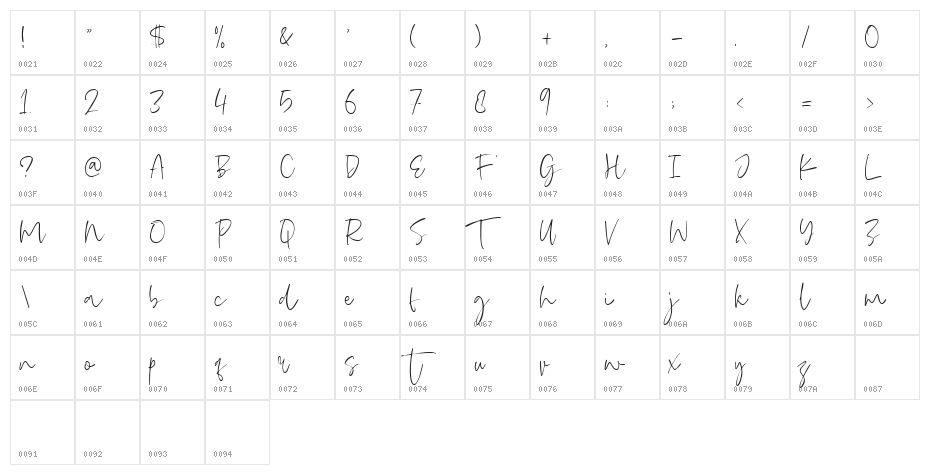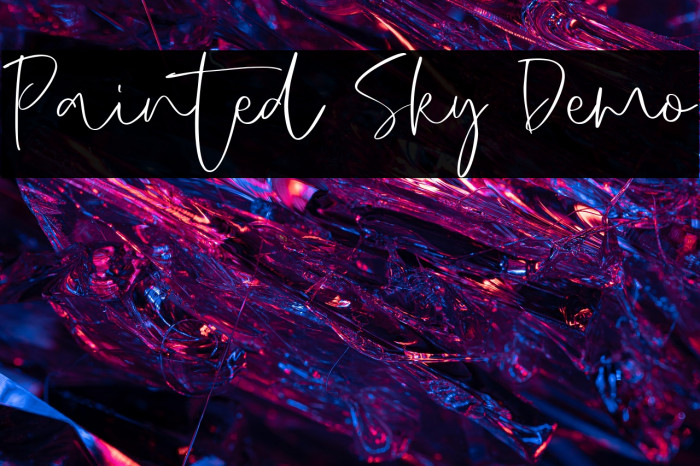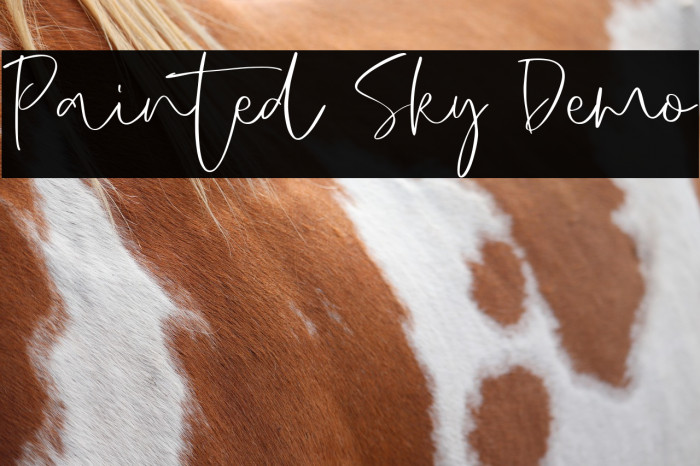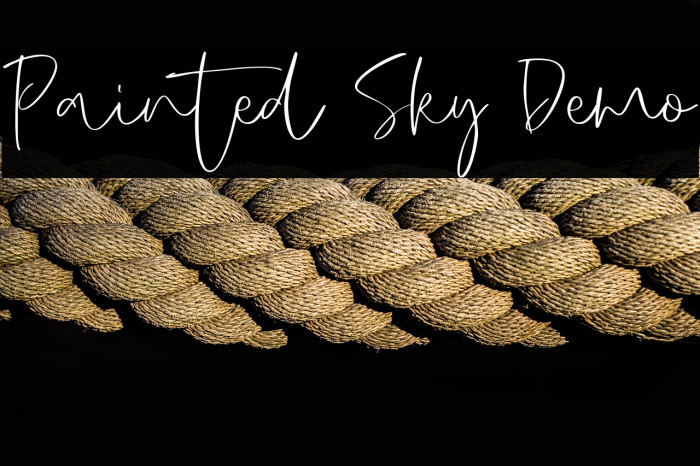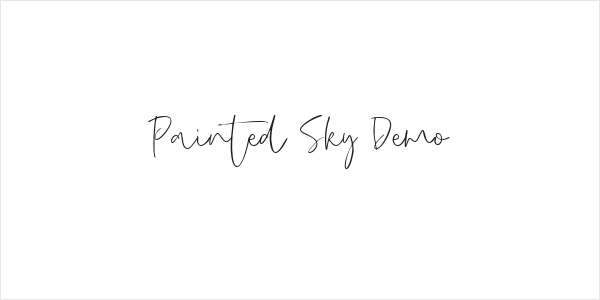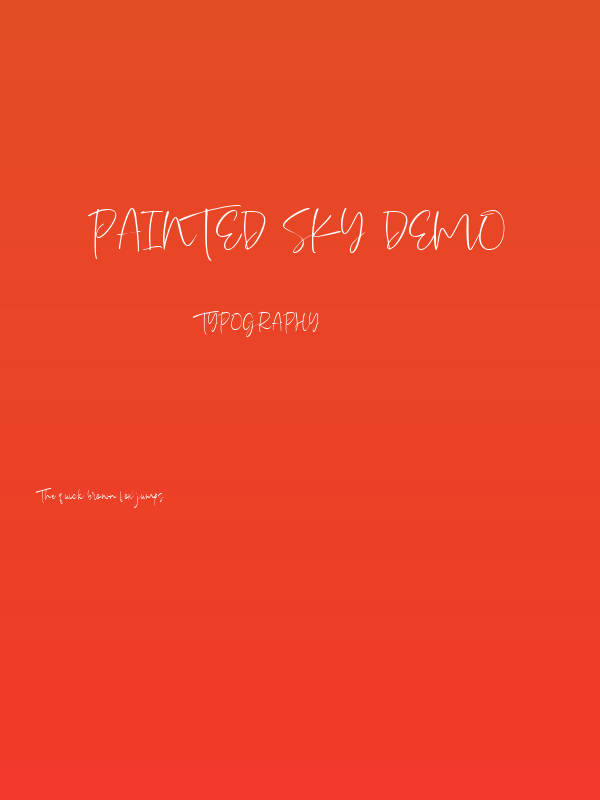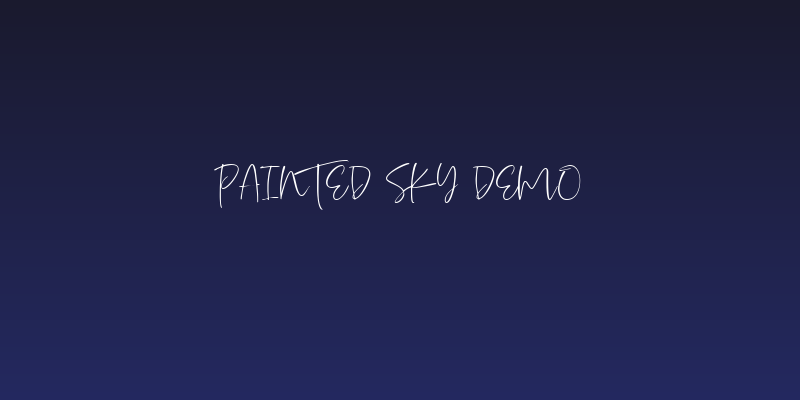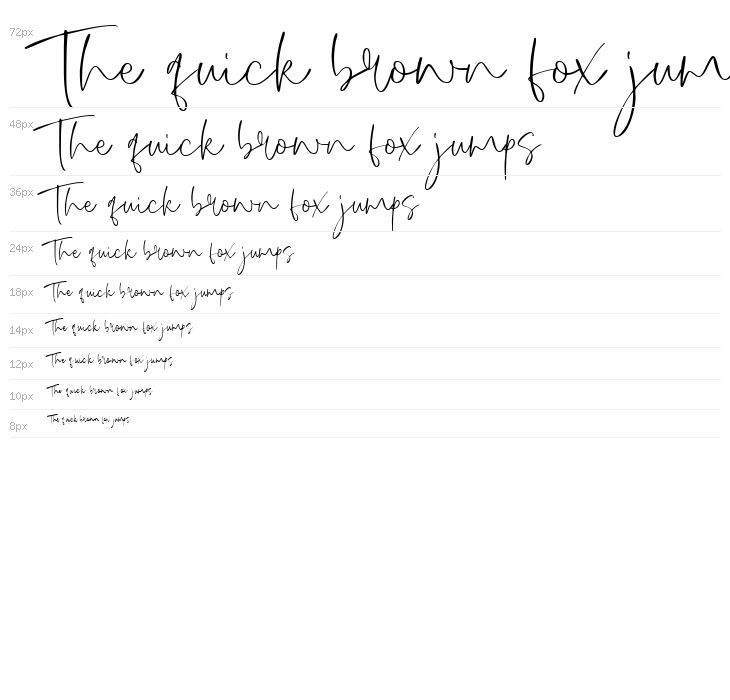
Painted Sky Demo Font
Painted Sky Demo Description
A loose, free-flowing handwritten script with tall, narrow letterforms and irregular baseline, mimicking natural penmanship with a casual and artistic flair.
| Overall Style | Decorative, Artistic, Casual |
| Use Case | Logos, Headlines, Invitations, Social media graphics |
| Proposed Projects | Greeting cards, invitations, social media graphics, personal branding, quotes, and artistic posters. |